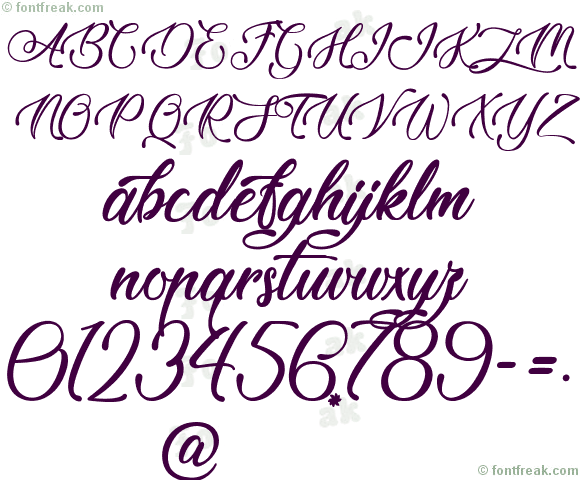
Tale of Hawks
About Tale of Hawks
Tale of Hawks is a captivating script font designed by Suthi Srisopha, classified under the decorative category. This font stands out with its elegant, flowing strokes that embody a sense of sophistication and artistry. The stroke weight varies, creating a beautiful contrast that enhances its visual appeal. The graceful curves and loops add a touch of whimsy, making it an ideal choice for projects that require a personal and inviting touch. The spacing is well-balanced, allowing for clear readability while maintaining its artistic flair.
This font is particularly versatile and can be used in a variety of creative applications. It is perfect for wedding invitations, where its romantic style can enhance the overall theme of love and celebration. Additionally, it is well-suited for movie posters, especially for romantic or fantasy genres, as it draws attention and evokes emotion. Restaurant menus can also benefit from the charm of Tale of Hawks, providing a warm and inviting aesthetic that complements fine dining experiences. Furthermore, content creators will find it a suitable choice for social media graphics and branding, as it adds personality and uniqueness to their visual identity.
Targeted at graphic designers, small business owners, and content creators, Tale of Hawks offers an artistic edge that can elevate any design project. The font's ability to blend elegance with creativity makes it a valuable resource for professionals looking to make a lasting impression.